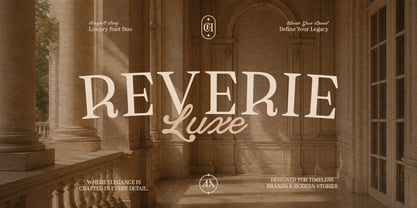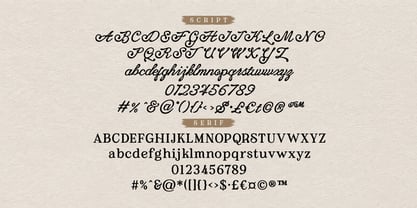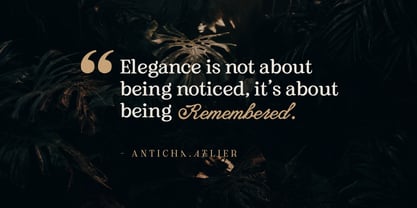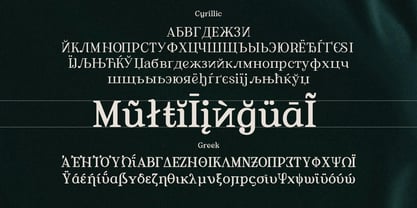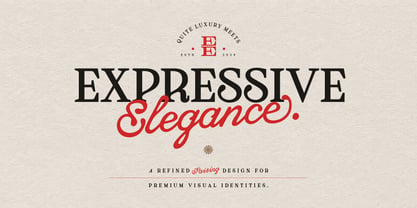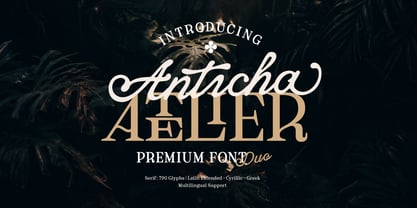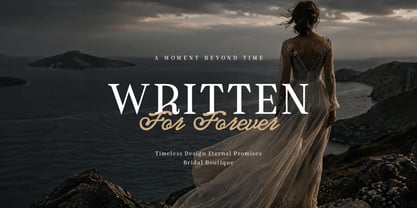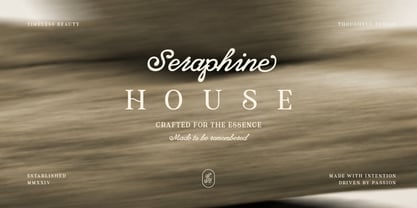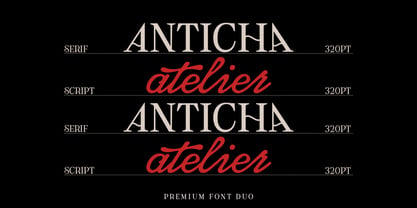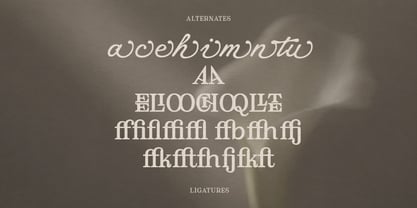
Anticha Atelier
Anticha Atelier is a premium font duo that blends artisan craftsmanship with modern luxury. Anticha is an expressive, textured script full of personality and warmth, while Atelier is a bold, structured serif that commands attention. Together, they create a visual language that feels both curated and timeless — ideal for creatives who believe that beautiful type is the foundation of beautiful design.
Whether you're designing logos, labels, editorial layouts, invitations, or brand identities, this duo delivers the contrast and character to make every project feel intentional and high-end. Anticha Atelier is perfectly suited for luxury branding, boutique logos, wedding and event design, product packaging, magazine editorials, social media graphics, and apparel.
This font duo includes Anticha Script, with its organic handcrafted letterforms and natural texture, alongside Atelier Serif, featuring 790 glyphs in a strong display weight with refined details. Both fonts offer full Latin Extended, Cyrillic, and Greek character sets with multilingual support across 200+ languages, covering uppercase, lowercase, numerals, punctuation, and special characters.